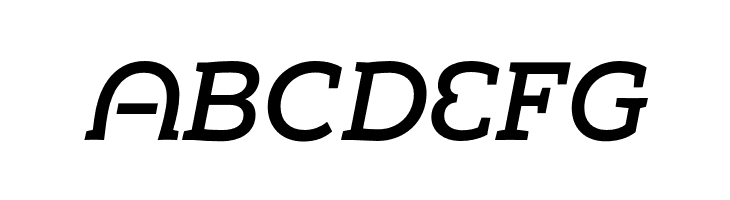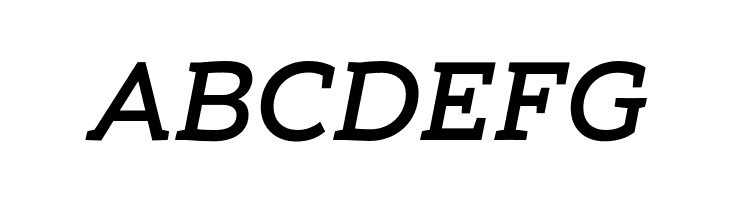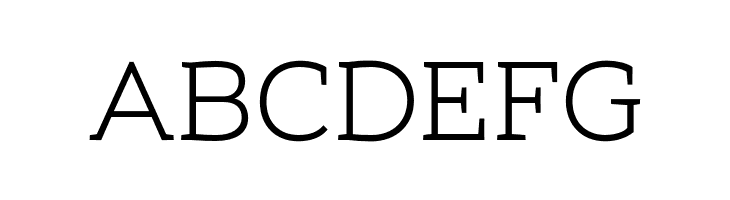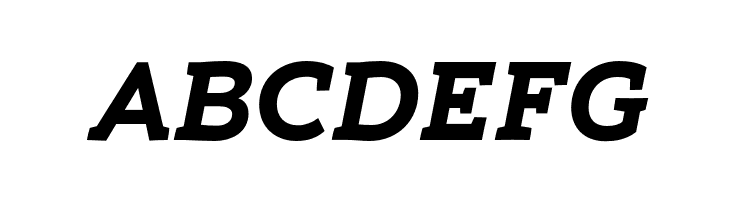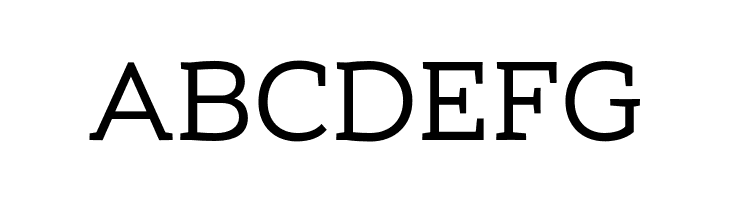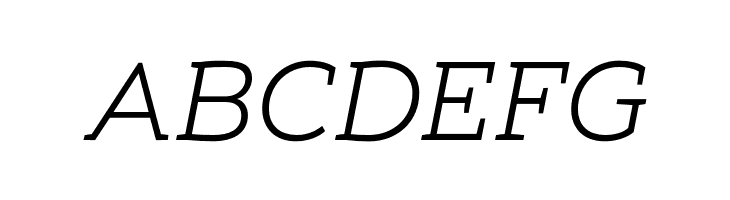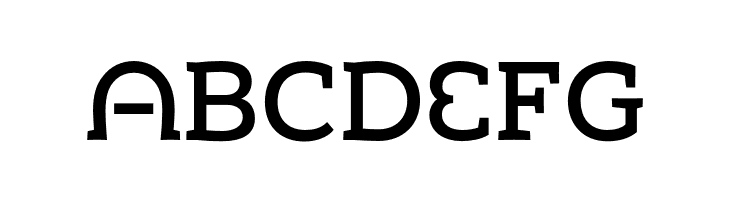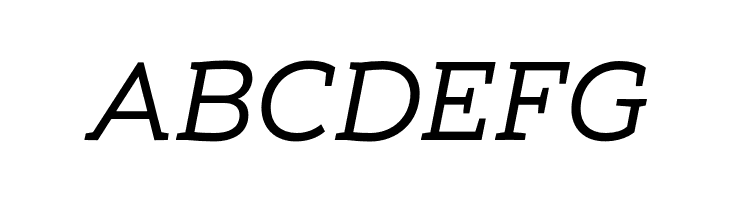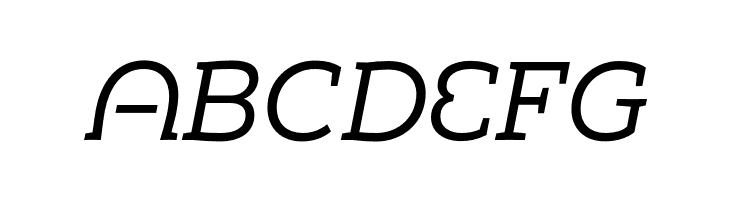
A modern slab serif font with an italic slant and medium weight, perfect for dynamic designs.
A modern, italic slab serif font with medium weight and elegant style.
A modern, light slab serif font with geometric influences.
A bold, italicized slab serif font with strong, thick strokes.
A modern slab serif font with a clean, structured appearance.
A light, italic serif font with a modern and elegant style.
A modern slab serif font with bold, geometric letterforms and a contemporary style.
A modern, italic slab serif font with moderate contrast and elegant curves.
A modern, elegant italic font with a dynamic and sophisticated style.
A modern, thin slab serif font with clean lines and elegant proportions.
A thin, geometric font with a modern and sophisticated style.
A refined, light, italic slab serif font with a modern and elegant style.